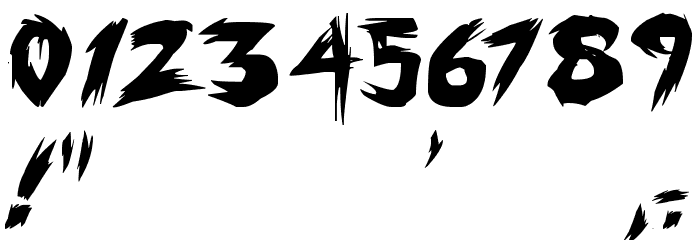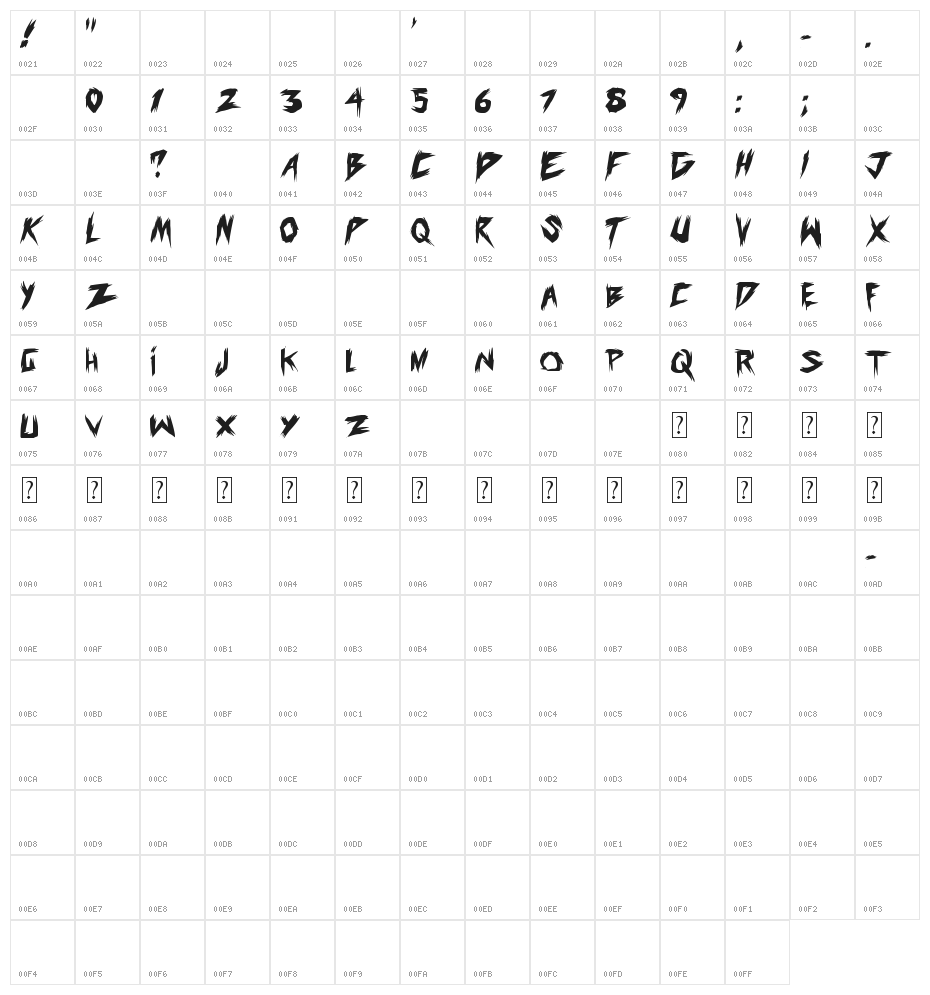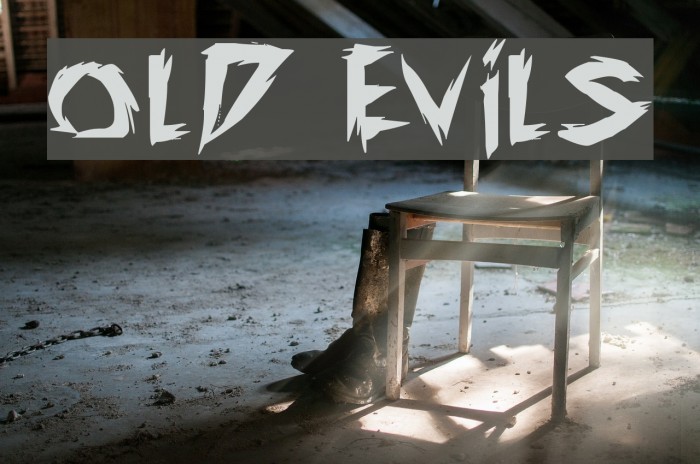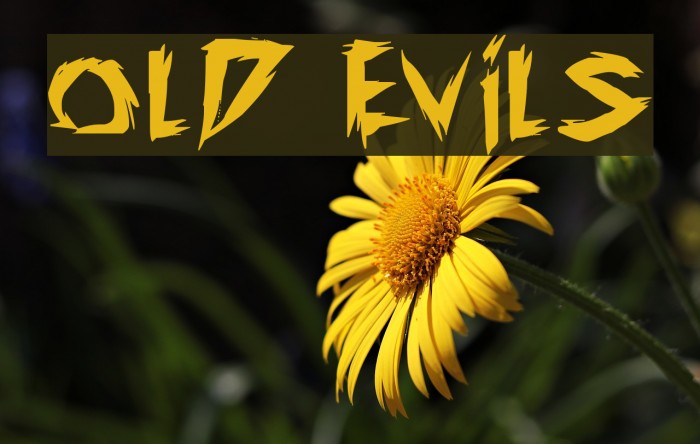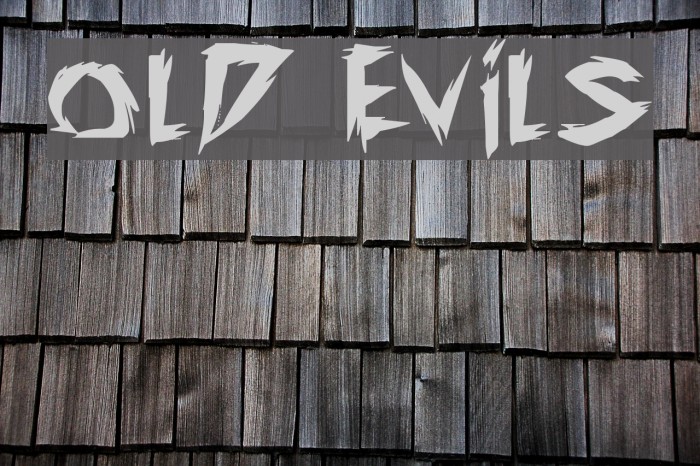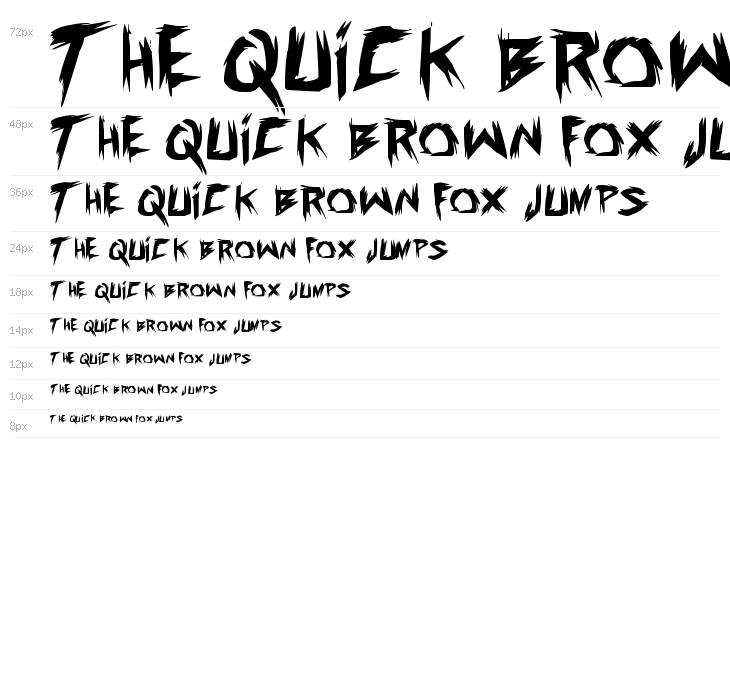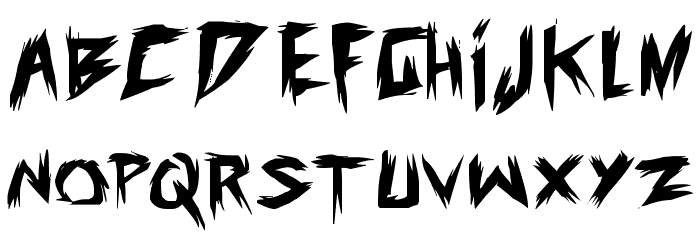
old evils Font
old evils Description
This font features a bold, jagged style with sharp, angular edges that give it a dynamic and aggressive appearance. The characters are designed with irregular strokes, creating a sense of movement and energy. The uppercase and lowercase letters maintain a consistent aesthetic, with each character appearing as if it has been slashed or torn. This design choice contributes to a chaotic yet controlled visual impact. The numbers and special characters follow the same stylistic approach, ensuring uniformity across the entire typeface. The overall look is striking and unconventional, making it ideal for projects that require a bold statement.
| Proposed Projects | Ideal for horror-themed posters, edgy branding, video game graphics, or music album covers. |